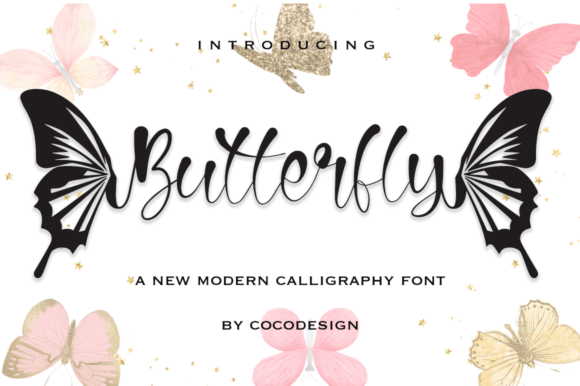
The Perfect Brushstroke: Unlocking the Magic of the Butterfly Font
Have you ever been stuck in a creative rut, staring blankly at a blank page, searching for the perfect font to bring your vision to life? You’re not alone. As a designer, I’ve been there too, until one day, I stumbled upon the Butterfly Font.
This modern calligraphy design is more than just a pretty face – it’s a versatile tool that can elevate any project from logos to product packaging, wedding invitations to branding, and everything in between. The Butterfly Font’s casual look and beautiful swashes make it the perfect addition to any designer’s toolkit. Whether you’re a seasoned pro or just starting out, this font is a valuable asset that will take your designs to the next level.
Key Features of Butterfly Font
- Unique Characteristics: The Butterfly Font features a unique blend of elegance and playfulness, with intricate details and subtle flourishes that add a touch of whimsy to any design.
Designer Review: Butterfly Font
As a designer, I was excited to dive into the Butterfly Font and see what it had to offer. ✨ The font’s playful, whimsical feel immediately caught my eye, and I could see it working beautifully in a variety of contexts, from children’s books to marketing materials.
The Butterfly Font’s unique letterforms and flourishes give it a lot of character, and the font’s flexibility makes it suitable for both digital and print applications. ✨ I also appreciate the font’s relatively high legibility, which is essential for ensuring that your message comes across clearly.
- ⚠️ The font may not be suitable for formal or professional applications, as its playful feel may come across as unprofessional.
- ⚠️ The font’s complexity may make it difficult to pair with other fonts, which could limit its use in certain designs.
- ⚠️ Some users may find the font’s flourishes and flourishes to be distracting or overwhelming.
Overall, I think the Butterfly Font is a fun and creative option that can add a lot of personality to your designs. However, it may not be the best choice for every project. With some careful consideration and pairing, it can be a great addition to your design toolkit.
The Butterfly Font is a whimsical and elegant font that is perfect for adding a touch of personality to your designs. It’s commonly used for:
– Baby shower and nursery decor
– Gift tags and labels
– Social media graphics and advertising
Getting the Most Out of the Butterfly Font
To get the most out of the Butterfly Font, try experimenting with different font sizes, colors, and styles to create a unique and eye-catching look. You can also pair the font with other whimsical elements, such as floral patterns and watercolor textures, to create a cohesive and visually appealing design.